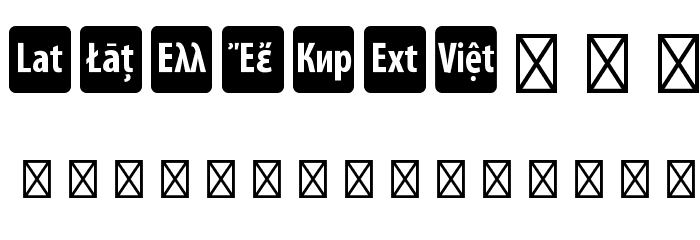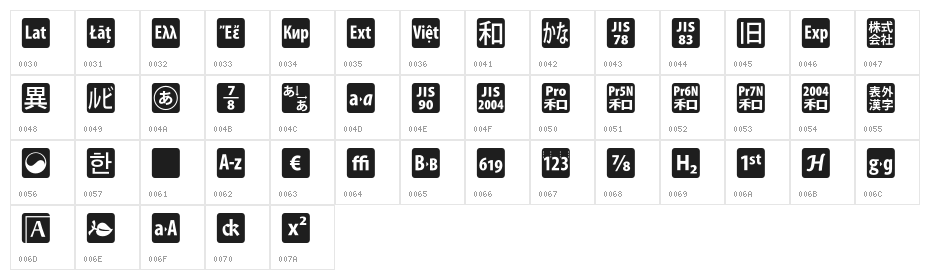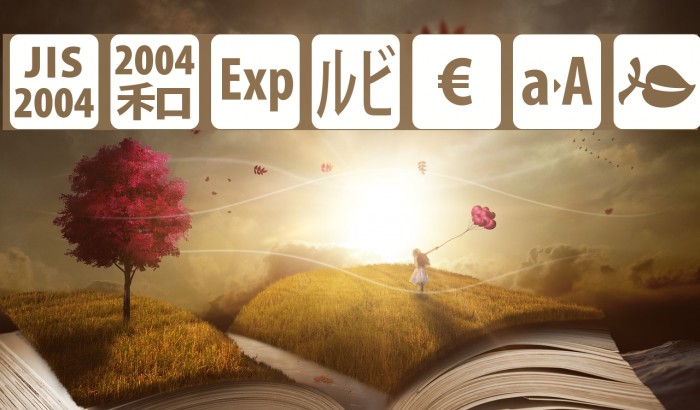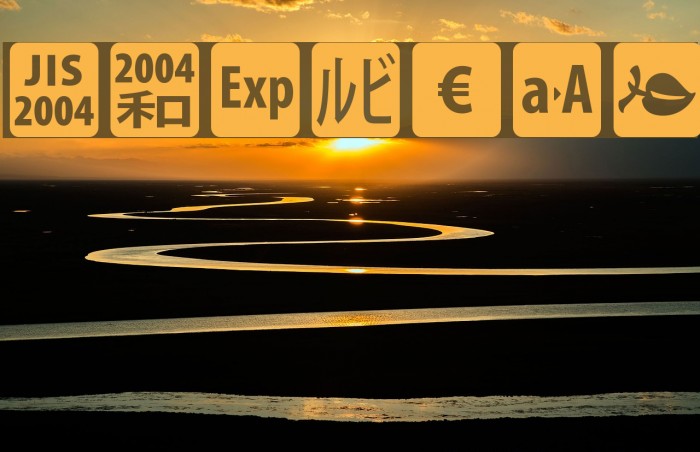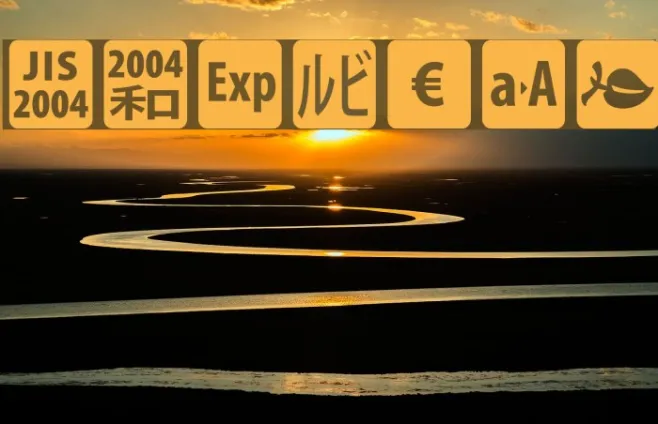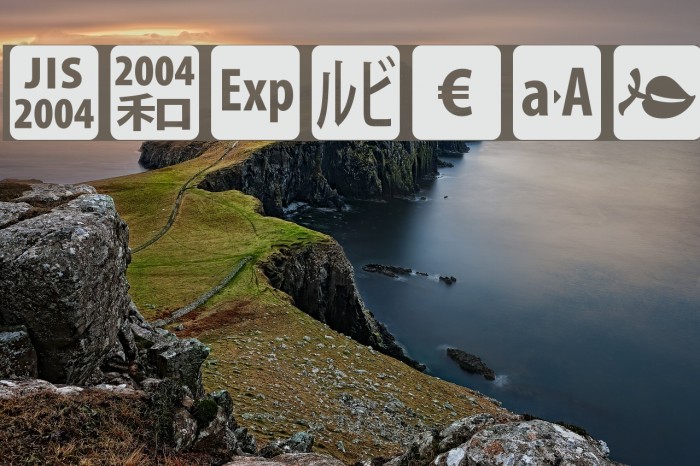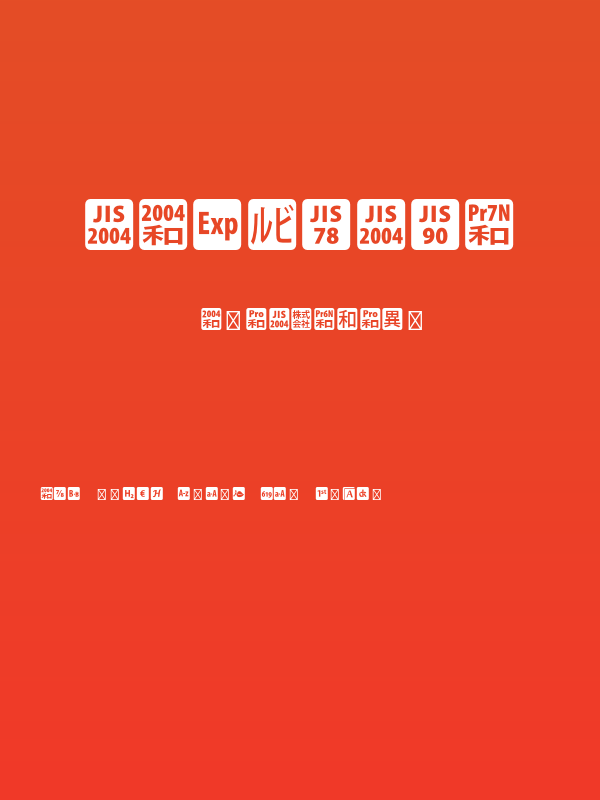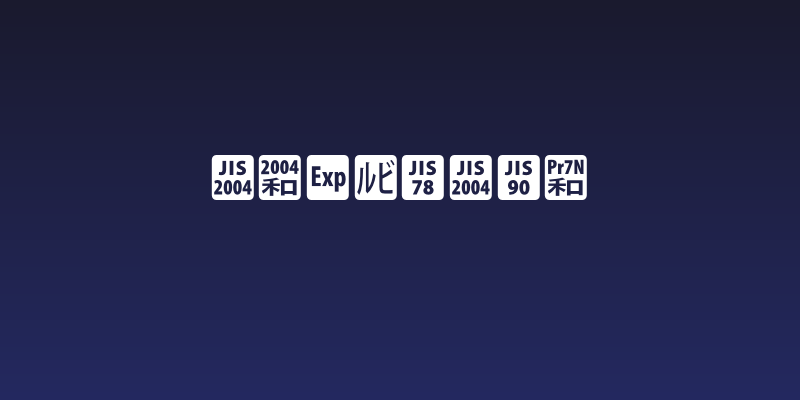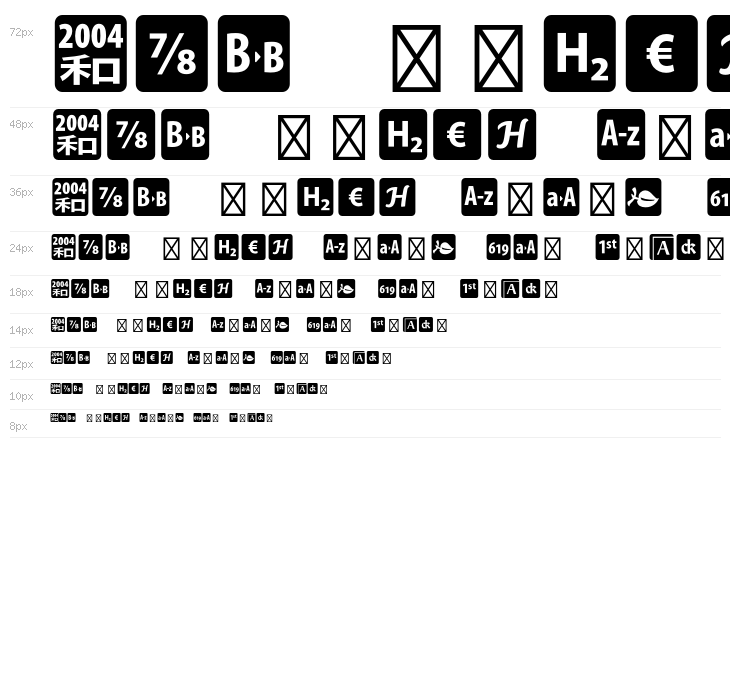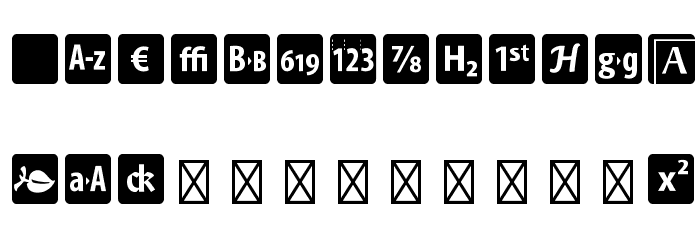
OTFIcons Font
OTFIcons Description
This image showcases a collection of icons and symbols rather than a traditional font. The design includes a variety of characters and symbols, such as Japanese kanji, Latin letters, and mathematical notations, all enclosed in square blocks. The style is uniform across the set, with each character or symbol presented in a bold, high-contrast manner. The icons are designed to be easily recognizable and are likely intended for use in specialized applications where such symbols are needed. The overall appearance is modern and functional, focusing on clarity and readability.
| Use Case | Icons, Symbols, Technical documentation |
| Proposed Projects | Ideal for use in educational materials, technical documentation, or software interfaces requiring specialized symbols. |